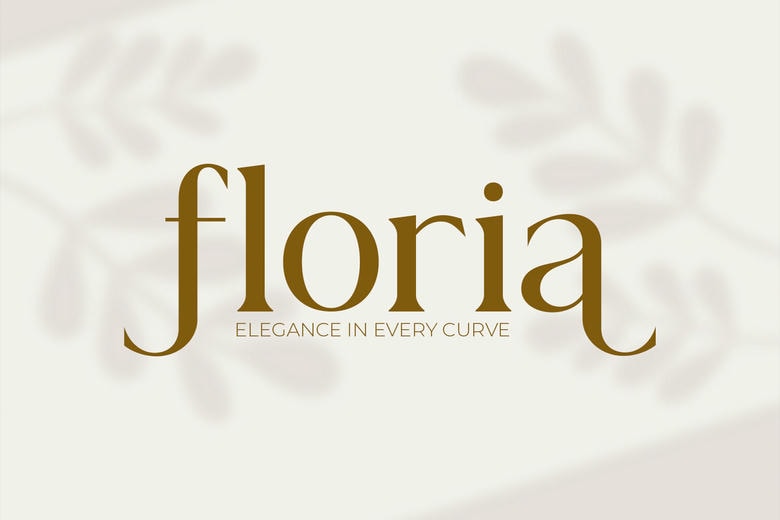
Floria Font
Floria is an upscale serif font, which is highly aesthetic and combines the essence of classical beauty and artistry. It has gorgeous, hand-made swashes and ornamental substitutes, and it is intended to add some sophistication and love to your creative work.
Its high-end curves will render it as the final option towards high-branding, high-end editorial layouts, and the best wedding stationery. Having a logo to design a cosmetic brand or a layout to design a luxury magazine, Floria offers the flexibility and the attractiveness you need to make your typography shine.
Floria Serif Font